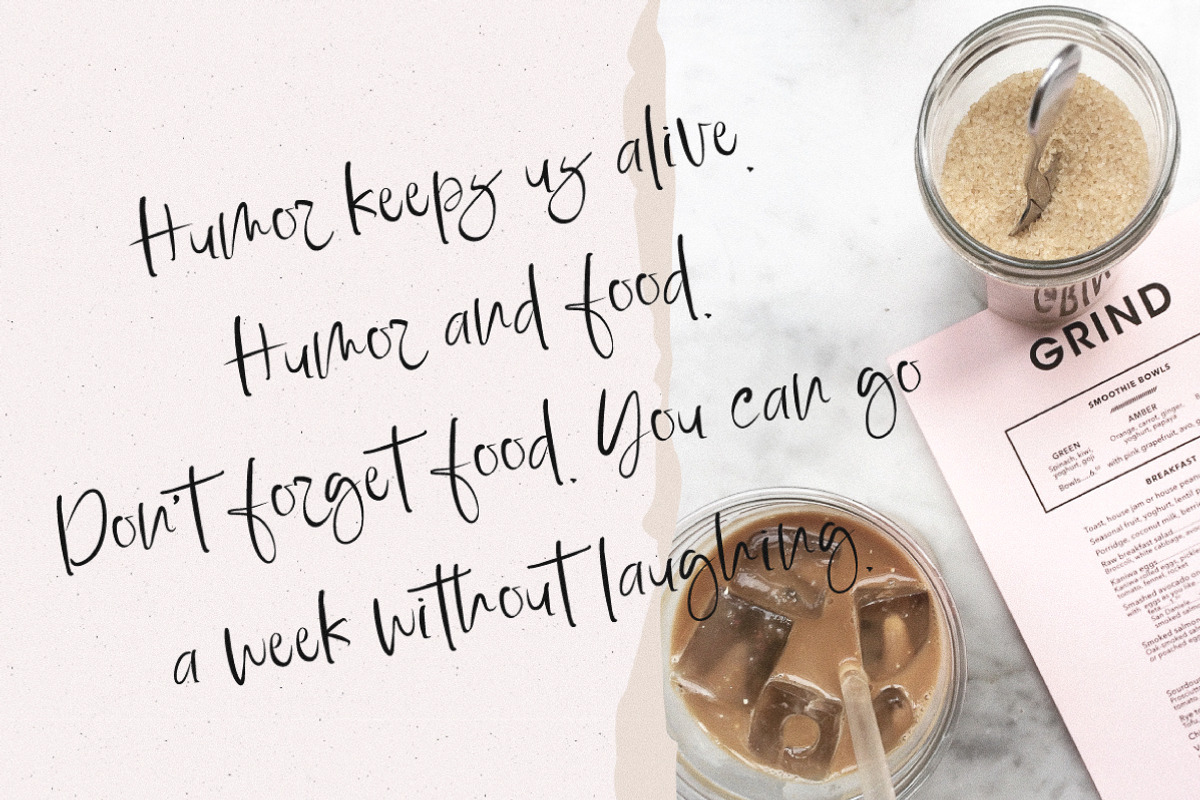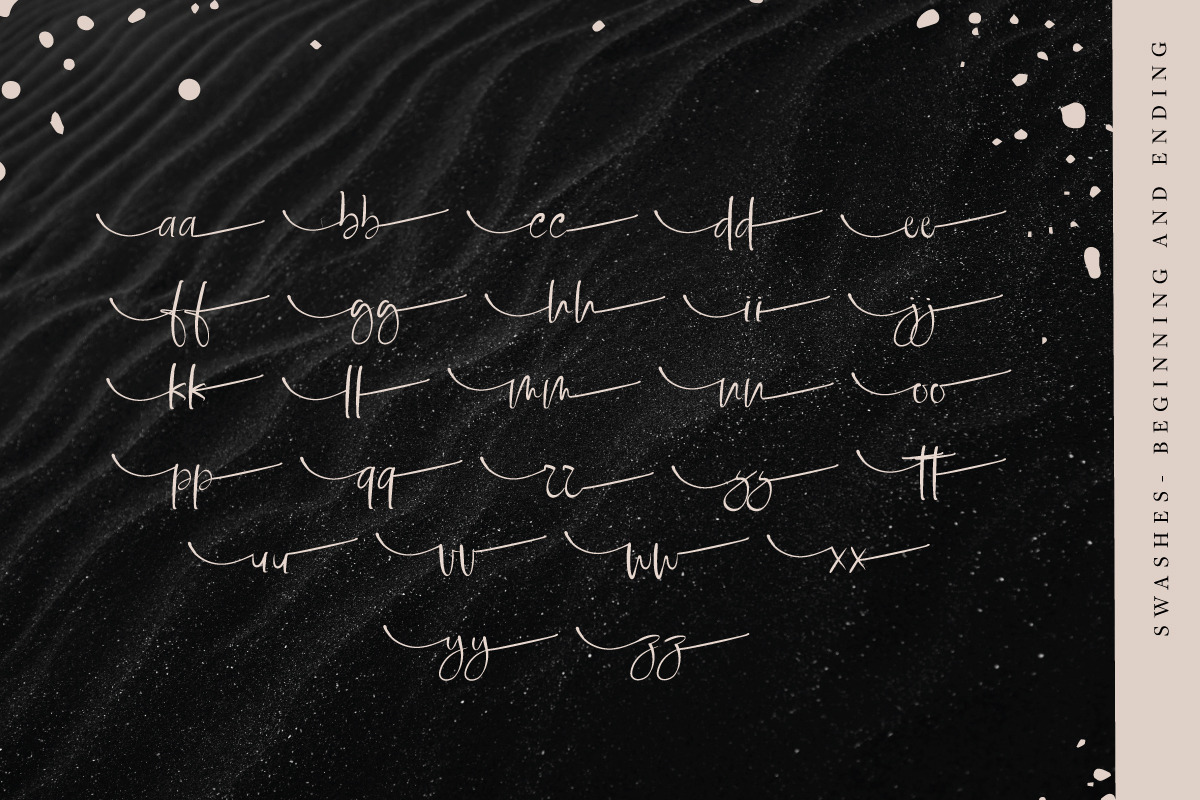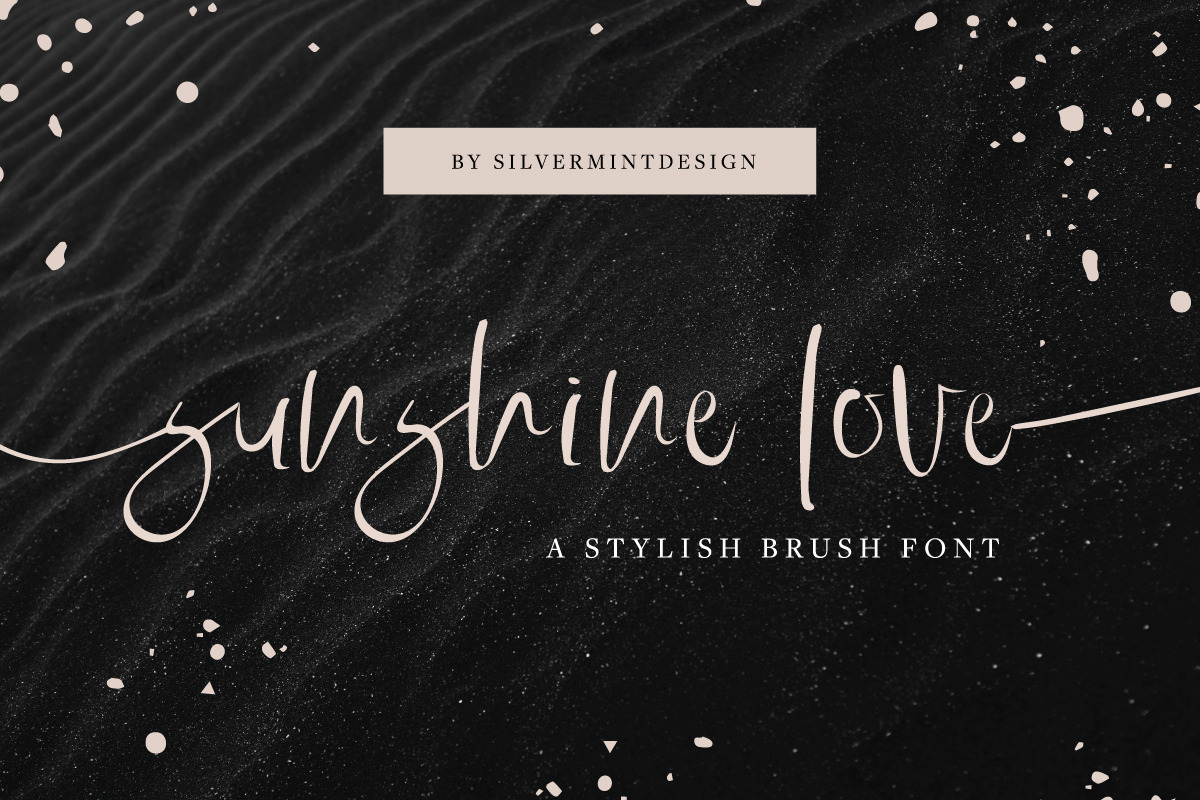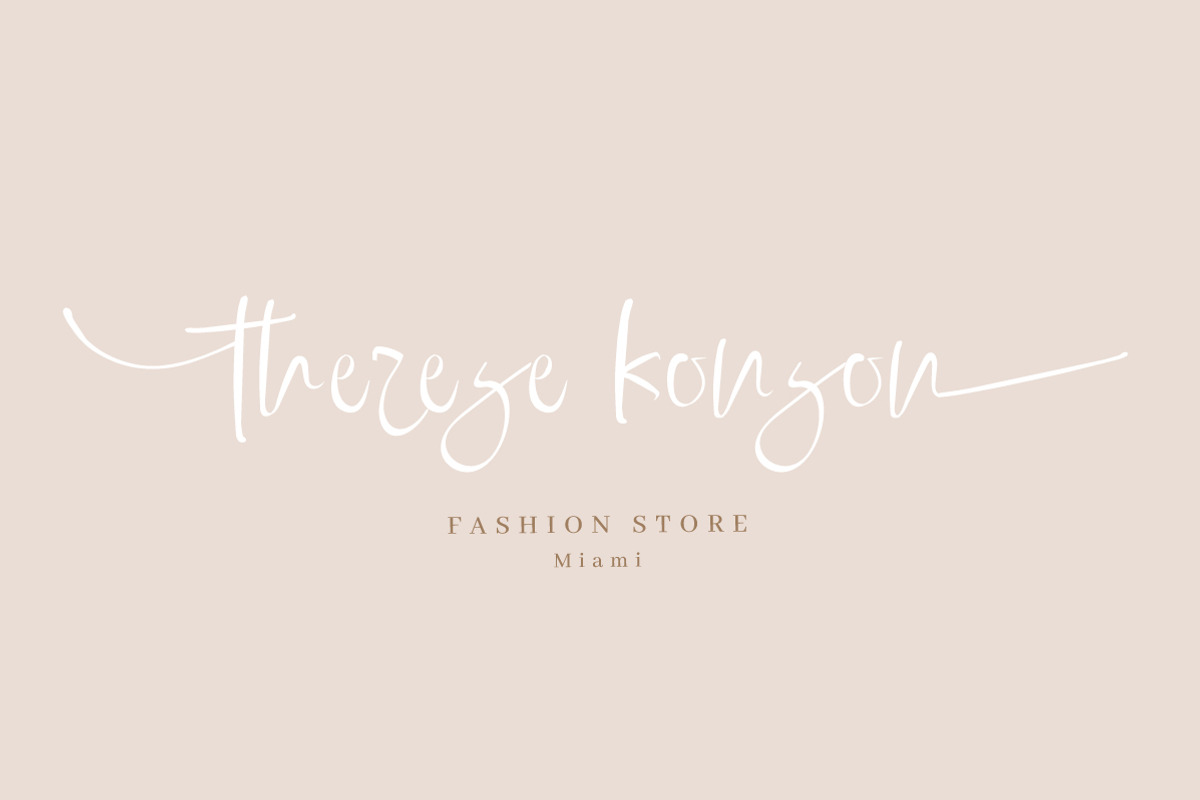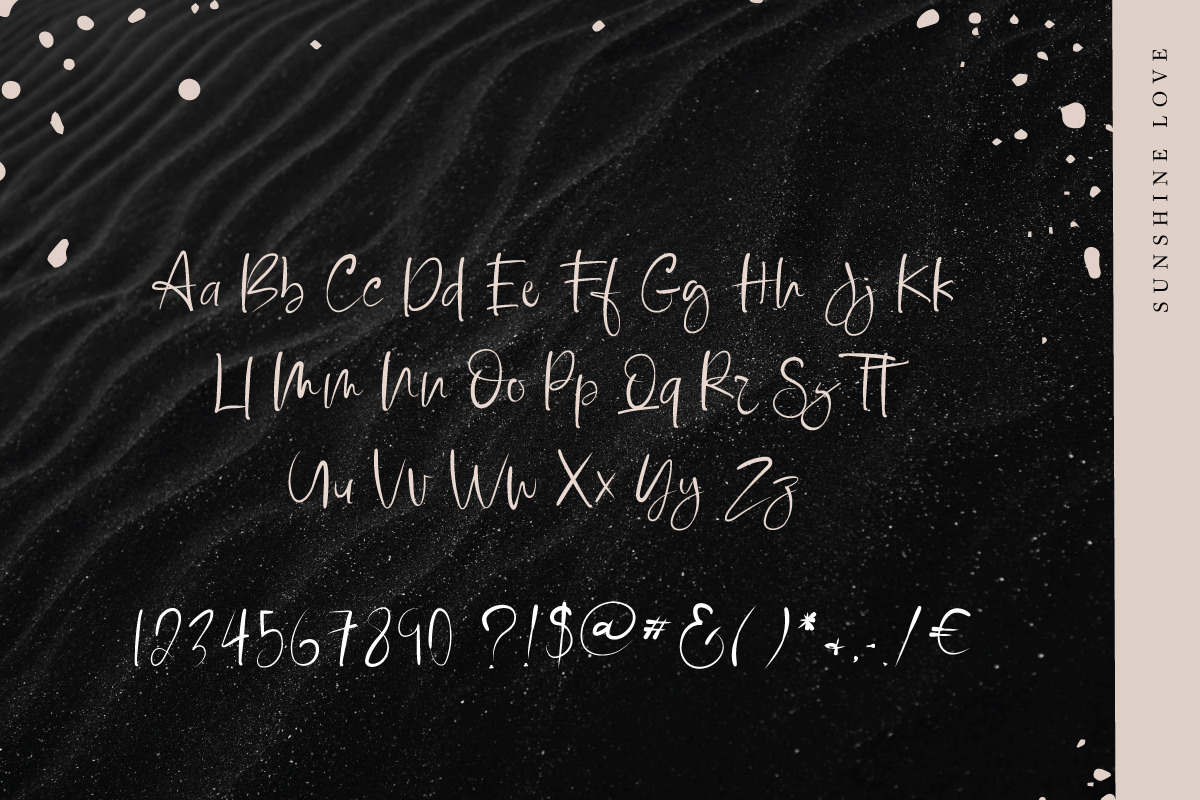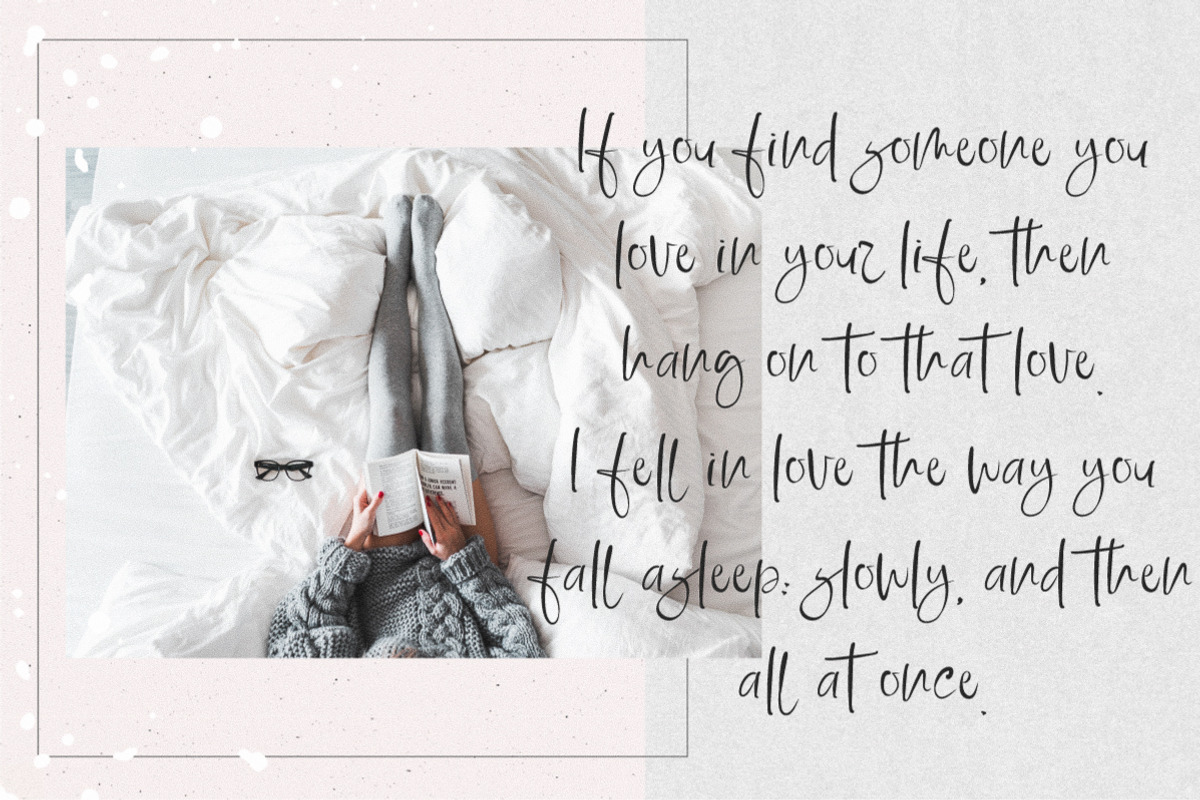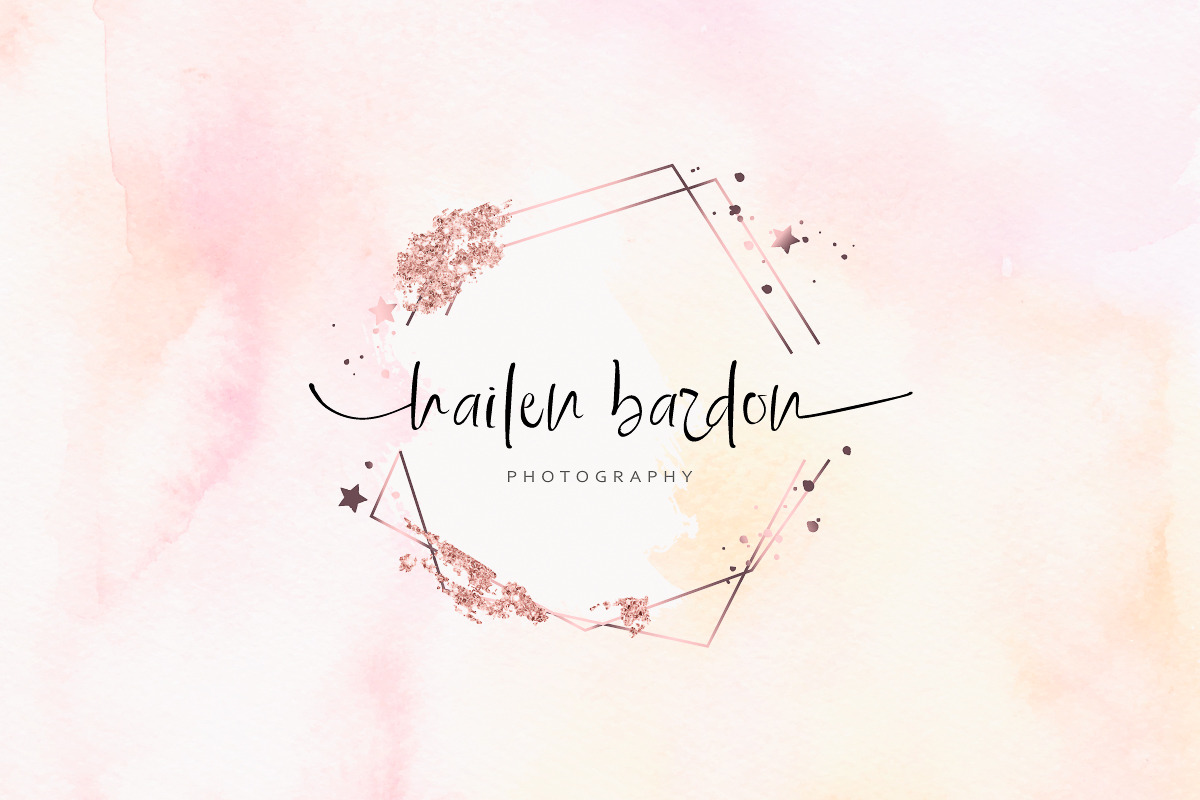
Sunshine Love
Introducing the lovely new Sunshine Love Font!
Sunshine Love was built with OpenType features and includes beginning and ending swashes, numbers, punctuation, alternates and ligatures :) Every single letter has been carefully crafted to make your text looks beautiful. Serenity Blush is perfect for elegant logos, upscale packaging, wedding stationery, websites, and any other projects requiring a handwritten and luxurious touch.